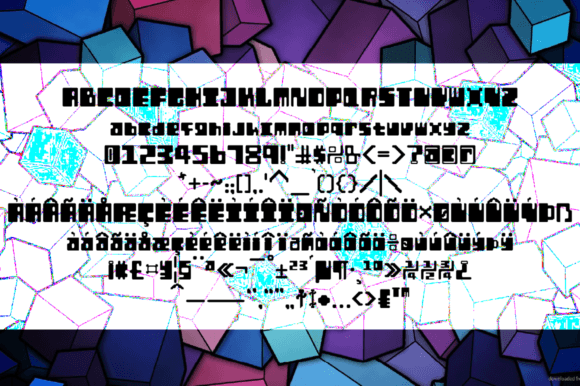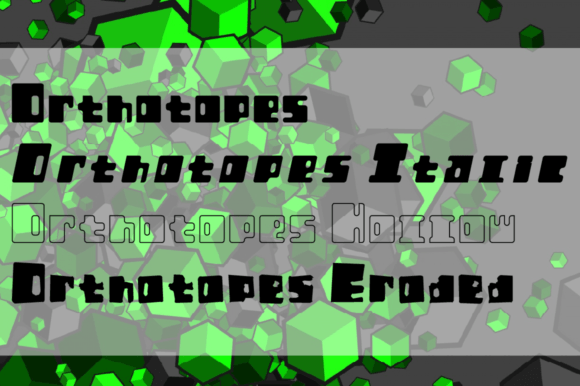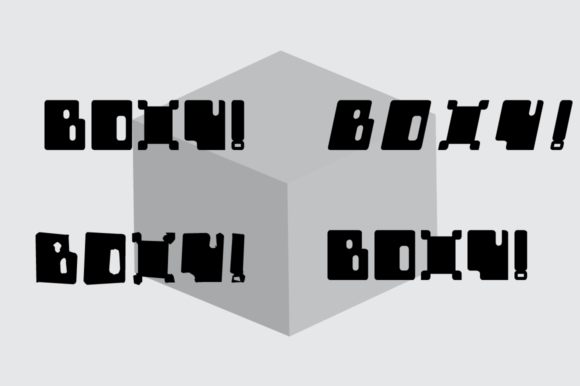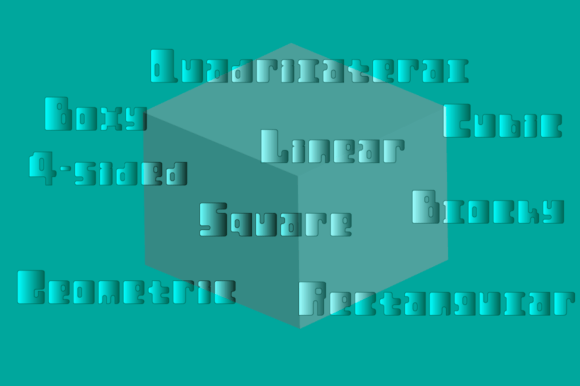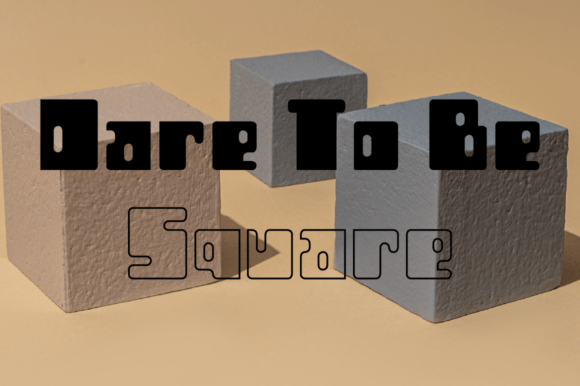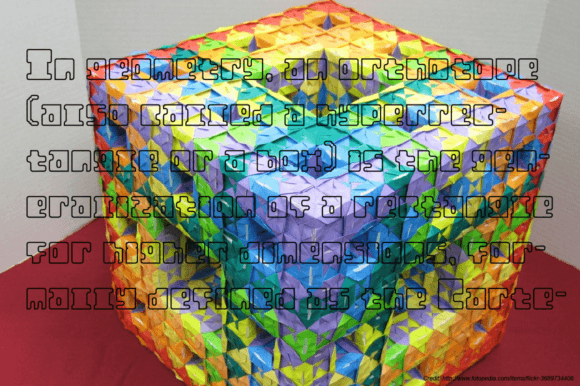
Introduction to Orthotopes – Italic Font
You know that moment when a design idea just clicks into place? It’s like a lightbulb moment that leaves you wondering how you ever managed without it. For designers, finding the perfect font can be just as exhilarating, especially when it’s a game-changer for a creative project. That’s exactly what the Orthotopes – Italic Font brings to the table – a unique blend of retro and futuristic vibes that’s sure to elevate your designs to the next level.
Whether you’re working on a poster, a holographic display, or any other design, this font is a valuable resource that can make all the difference. With its squarish and retro aesthetic, Orthotopes – Italic Font is a free download that’s perfect for designers looking for a high-quality, versatile font with a transparent background.
Key Features of Orthotopes – Italic Font
- Unique, creative project design resource for typography enthusiasts
- High-quality, italic font with a transparent background, ideal for layered designs
- Perfect for designers and artists working on creative projects, requiring a stylish and elegant font
Honest Review: Orthotopes – Italic Font
As a designer, I’m always on the lookout for high-quality design resources to elevate my creative projects. The Orthotopes – Italic Font is one such gem that I recently had the chance to review.
- ✨ Elegant and sophisticated design aesthetic that’s perfect for creating a professional atmosphere in any design project.
- ✨ Highly legible and clear, making it ideal for use in body text or headings.
- ✨ Supports a range of languages, making it a versatile option for designers working on global projects.
- ⚠️ Limited font weight options, which may not be suitable for designers who require a range of weights for their projects.
- ⚠️ Transparent background option only available for the outline version, which may not be ideal for all design applications.
Overall, I’m impressed with the Orthotopes – Italic Font’s high-quality design and legibility. While it may have some limitations, it’s a great addition to any designer’s toolkit and a valuable resource for any creative project.
The Orthotopes – Italic Font is a versatile design resource that can be used in a variety of creative projects, including logos, posters, and infographics. Its high-quality design and transparent background make it easy to use in any design context.
To get the most out of the Orthotopes – Italic Font, be sure to experiment with different font sizes, colors, and styles to create a unique and eye-catching design. You can also combine the font with other design elements, such as images and shapes, to create a visually appealing composition.
Q: Can I customize the Orthotopes – Italic Font for my specific design needs?
While the Orthotopes – Italic Font is a pre-designed font, you can experiment with different font sizes, colors, and styles to create a unique look for your design project. Additionally, you can use font editing software to customize the font’s appearance, but please note that this may require technical expertise.